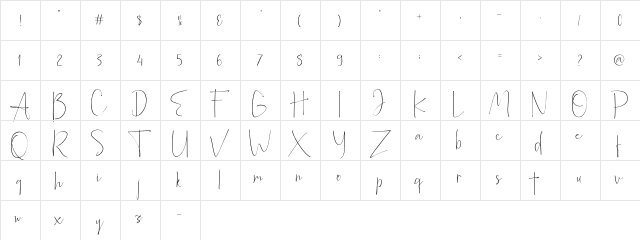
Alberth Demo Regular
Design Context for Alberth Demo Typeface
Alberth Demo is a composed and adaptable typeface that performs quietly and consistently across a wide range of design contexts.
Pro Tip: Pair Alberth Demo with a font of contrasting weight or personality to build a more expressive typographic hierarchy.